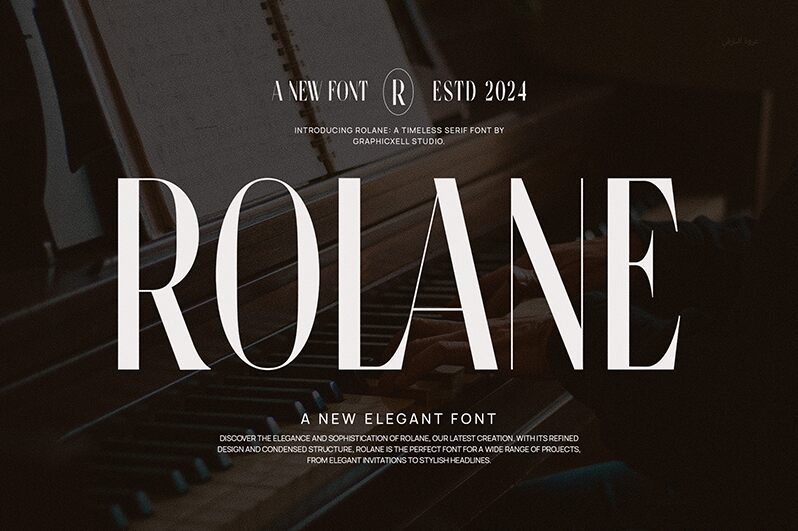
Rolane font by Graphicxell is a sleek serif with a sophisticated style. Made as a sophisticated yet simple serif font, Rolane captures a refined and elegant style with a timeless flair. This free font is characterized by subtle lines that combine old-style aesthetic with a modern flair.
The font is especially recommended for magazines, art galleries, personal branding, and visual identity projects. It is also suitable for packaging design, labels, posters, cover designs, stationery, and perhaps even typography or calligraphy artwork.